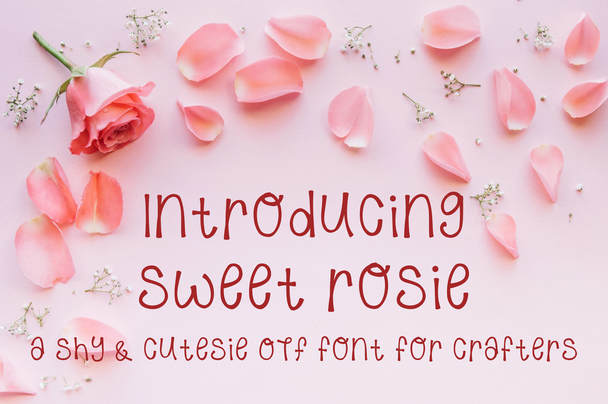
HomeScript FontsSweet Rosie Font Script Fonts Sweet Rosie Font FacebookXPinterestWhatsApp About Sweet Rosie Font Sweet Rosie is a swirly and girly hand written font for crafters, with an ease of style and character. DOWNLOAD ON CREATIVE FABRICAThis font is sold and delivered by Creative Fabrica. Font Canyon may earn a commission if you buy through this link. People also explored Raisting Font Halfway Font Mechanic Signature Font Raffles Bryant Font Athletico Girl Power Font Camping Holiday Graf Font Natalie Christmas Font 312 0 TagsSweet Rosie Font Previous articleCharlotte Calligraphy FontNext articleFeelsmooth Font LEAVE A REPLY Cancel reply Comment: Please enter your comment! Name:* Please enter your name here Email:* You have entered an incorrect email address! Please enter your email address here Website: Save my name, email, and website in this browser for the next time I comment. Personal Use Free Ancient Script Personal Use Free Read more about this font Baby Mollusca Personal Use Free Read more about this font Calling Personal Use Free Read more about this font Castina Personal Use Free Read more about this font BLOG 5 Fonts That Will Dominate Design Trends in 2026 5 Fonts for 2026 That Will Dominate Design Trends Typography plays a critical role in visual communication, and as we look ahead to 2026, it’s... Where to Buy American Fonts Online in 2024 Using Fonts in Digital Marketing: Tips to Strengthen Your Brand Identity Top 10 Handwritten Fonts That Elevate Your Designs